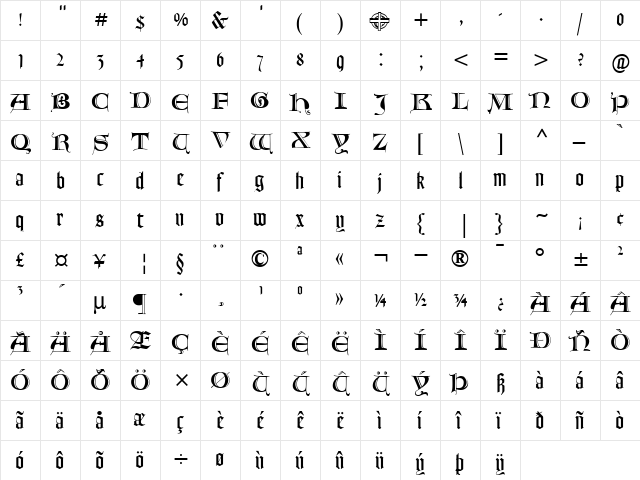
GoudyTextMTLombardicCapitals Roman Font Preview
GoudyTextMTLombardicCapitals Roman
Design Context for GoudyTextMTLombardicCapitals Typeface
GoudyTextMTLombardicCapitals is a composed and adaptable typeface that performs quietly and consistently across a wide range of design contexts.